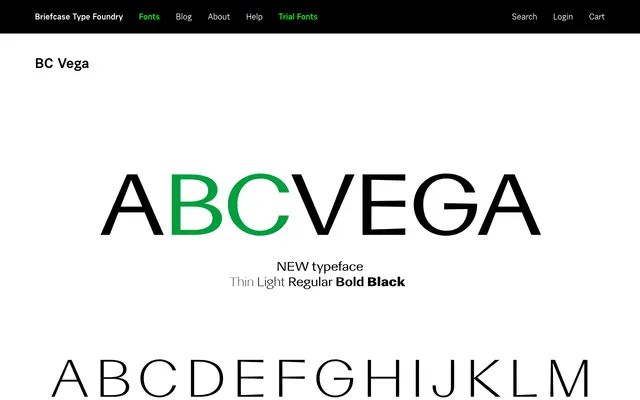
A geometric sans-serif from Prague-based Briefcase Type Foundry, with minimal page detail available at time of capture.
BC Vega is a geometric sans-serif released by Briefcase Type Foundry, a Czech studio known for clean, structured typefaces. The page yielded very little detail beyond the typeface name and a reference to related font BC Orion, suggesting both sit within the same geometric or technical sans category. Further weights, language support and optical variants remain unconfirmed from the available content.
The name and foundry context suggest a clean geometric sans-serif in the tradition of Briefcase's other geometric offerings; without additional page content, classification is based on available signals.